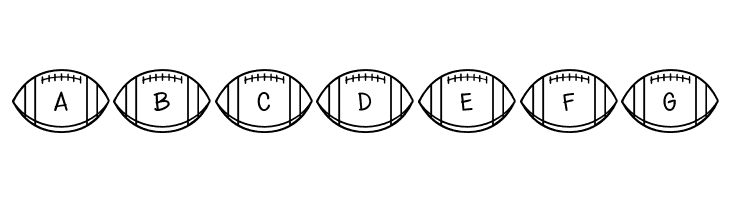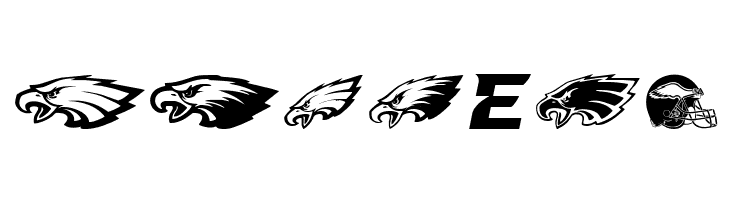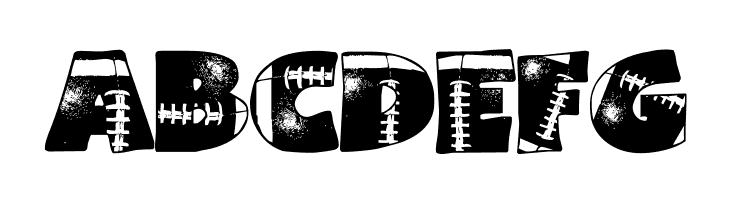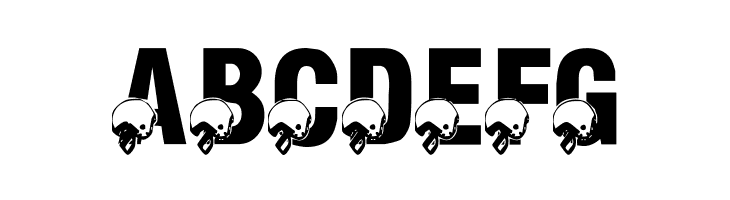
A decorative font with characters inside football shapes, ideal for sports themes.
A decorative font with characters inside football shapes, perfect for sports themes.
A bold, playful display font with football-themed embellishments.
A bold, playful font with football-themed decorations on each letter.
A decorative font with football-themed illustrations integrated into bold, stylized letters.
A bold, football-themed font with integrated sports elements.
Bold, energetic display font with sports-themed icons.